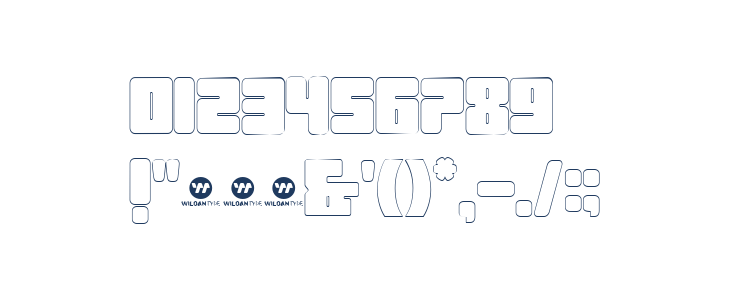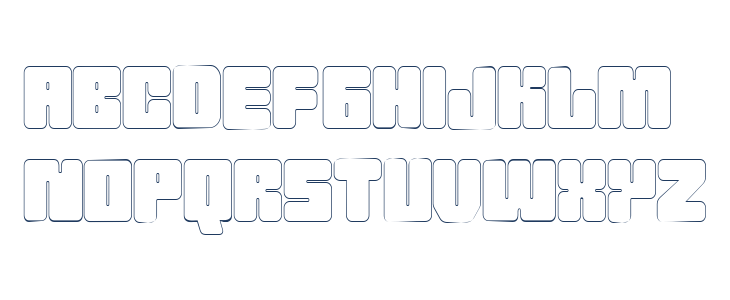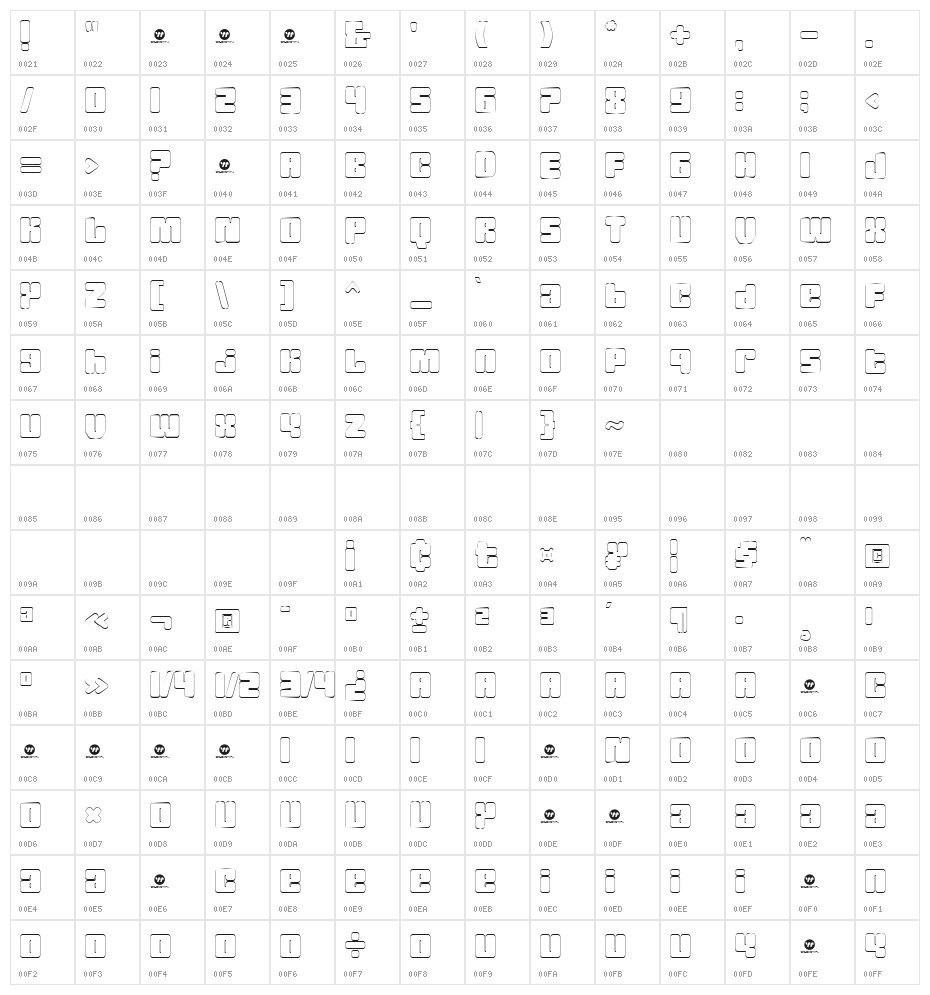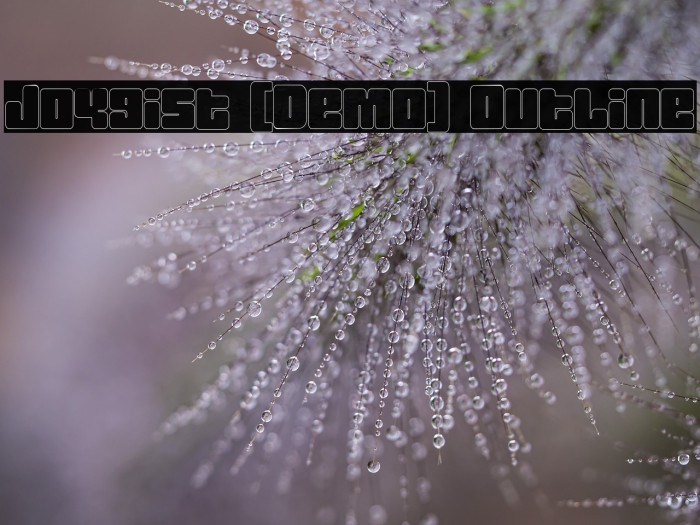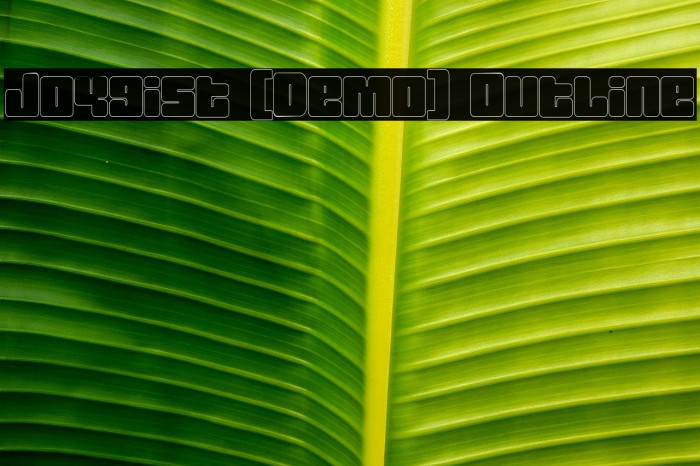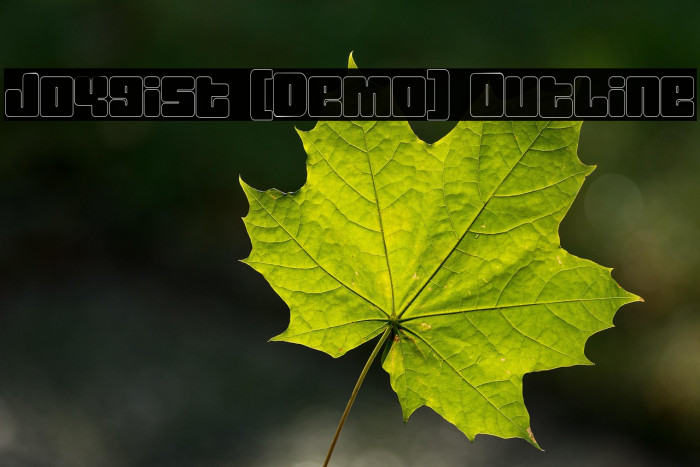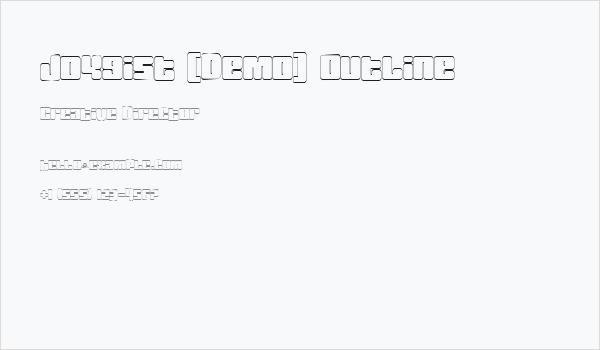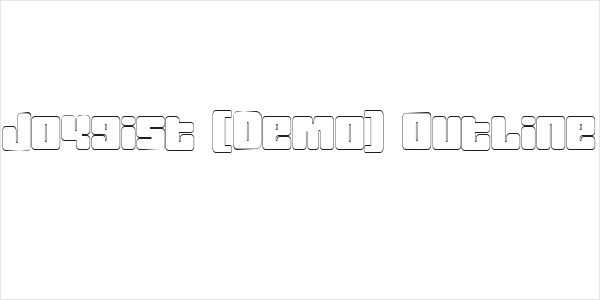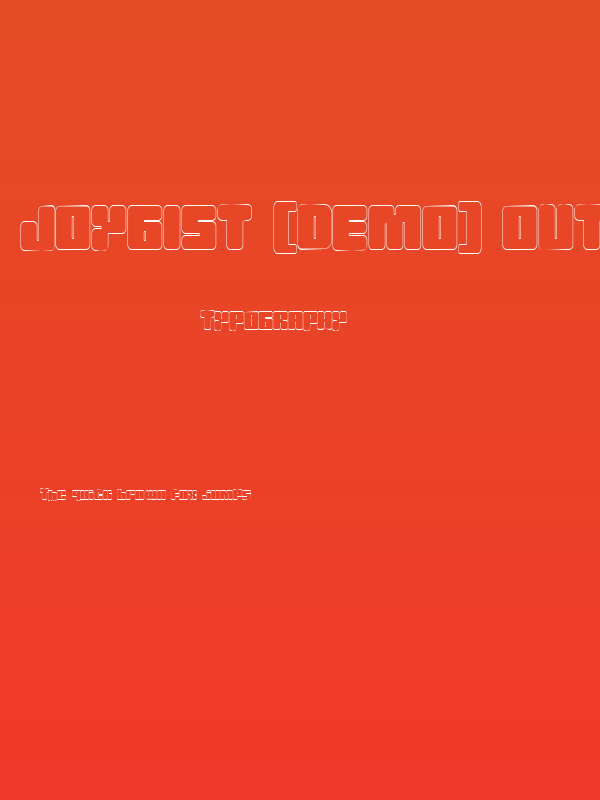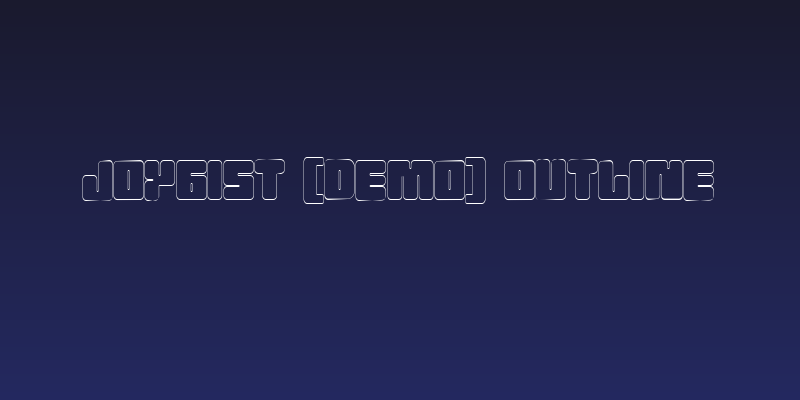
Joygist [Demo] Outline Font
Joygist [Demo] Outline Description
A bold, rounded outline font with a blocky, geometric structure and consistent stroke width, featuring uppercase, lowercase, numbers, and special characters.
| Overall Style | Modern, playful, and geometric |
| Use Case | Headlines, logos, posters, branding |
| Proposed Projects | Suitable for logos, headlines, posters, and playful or modern branding projects. |